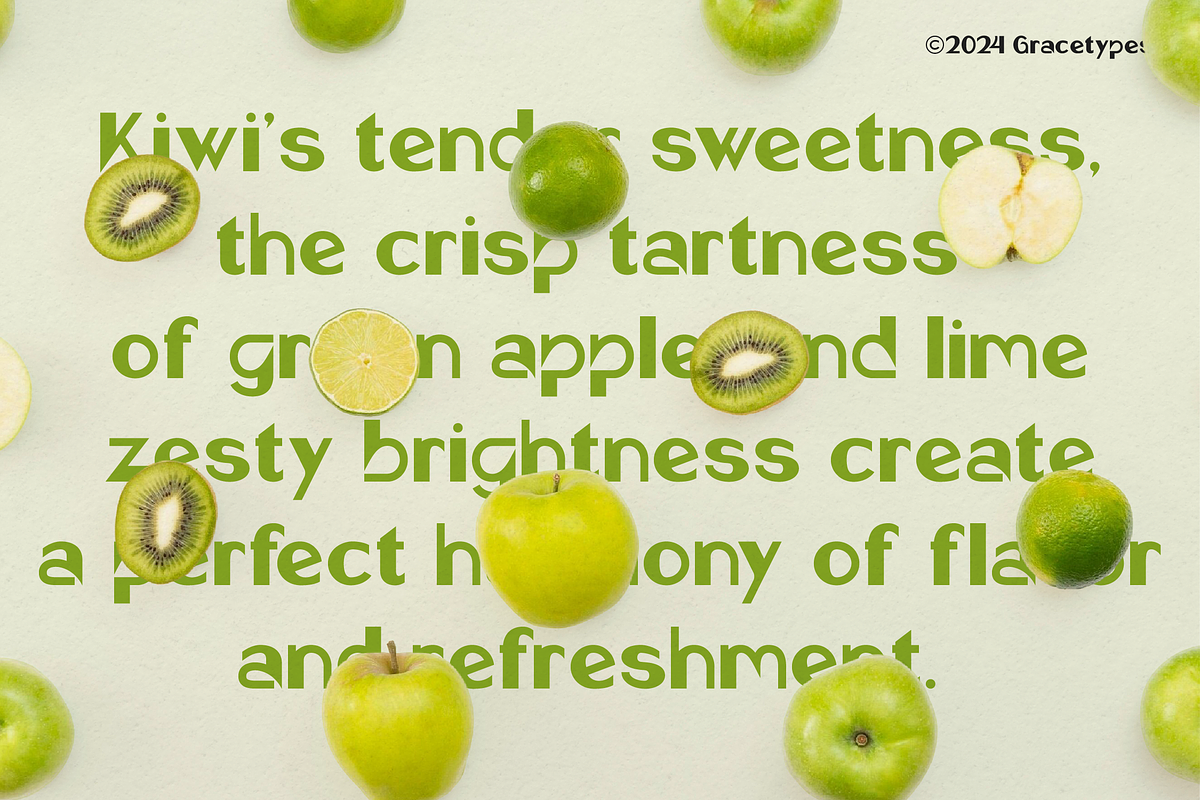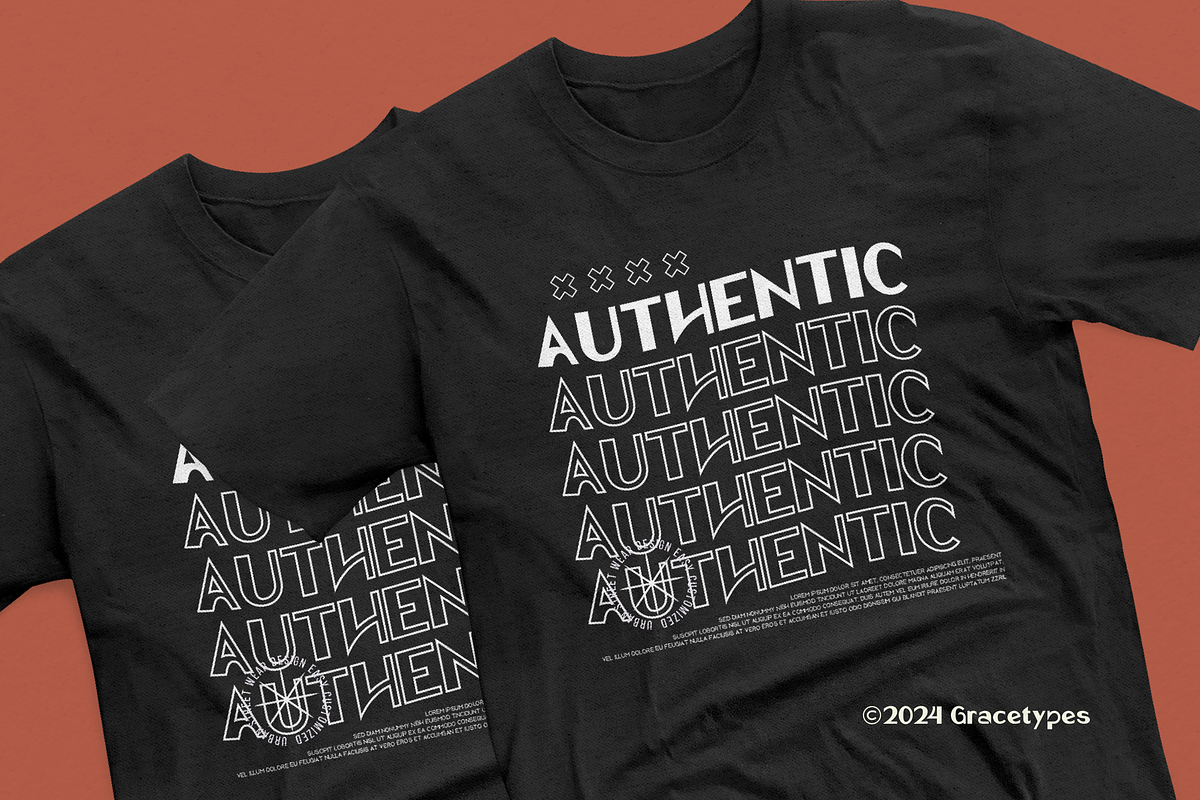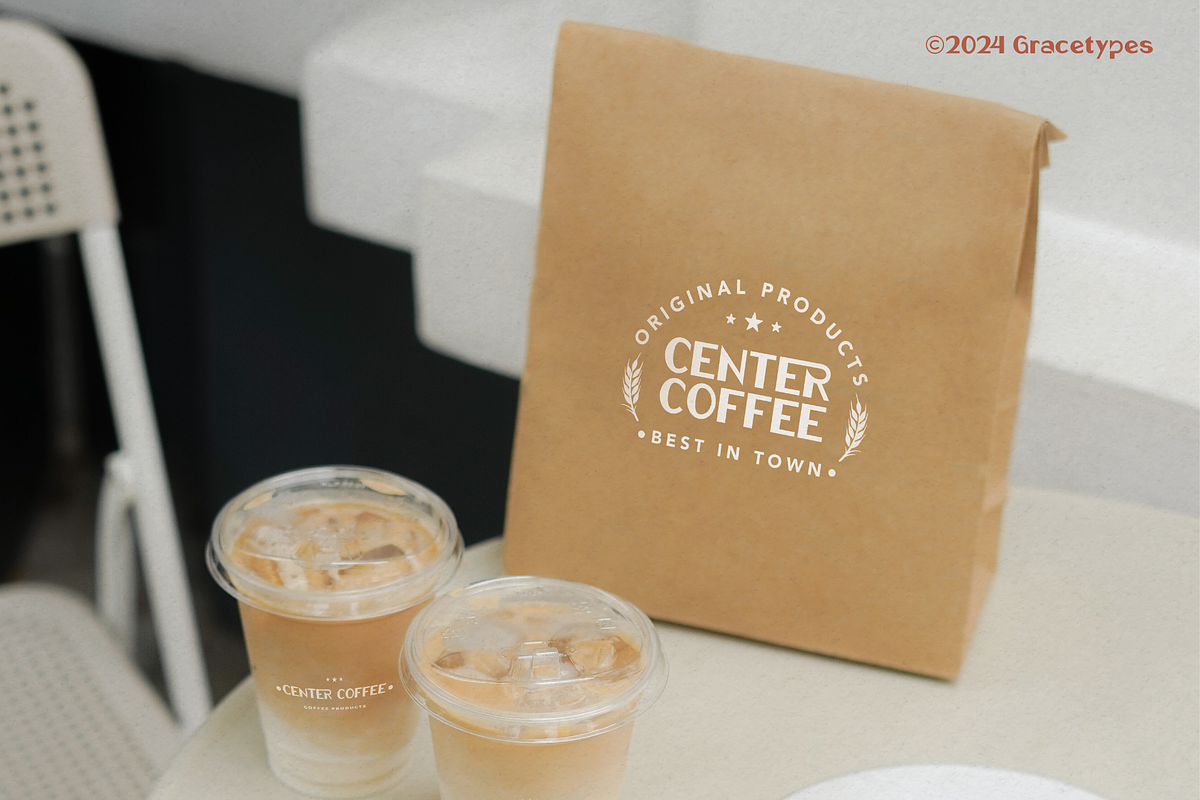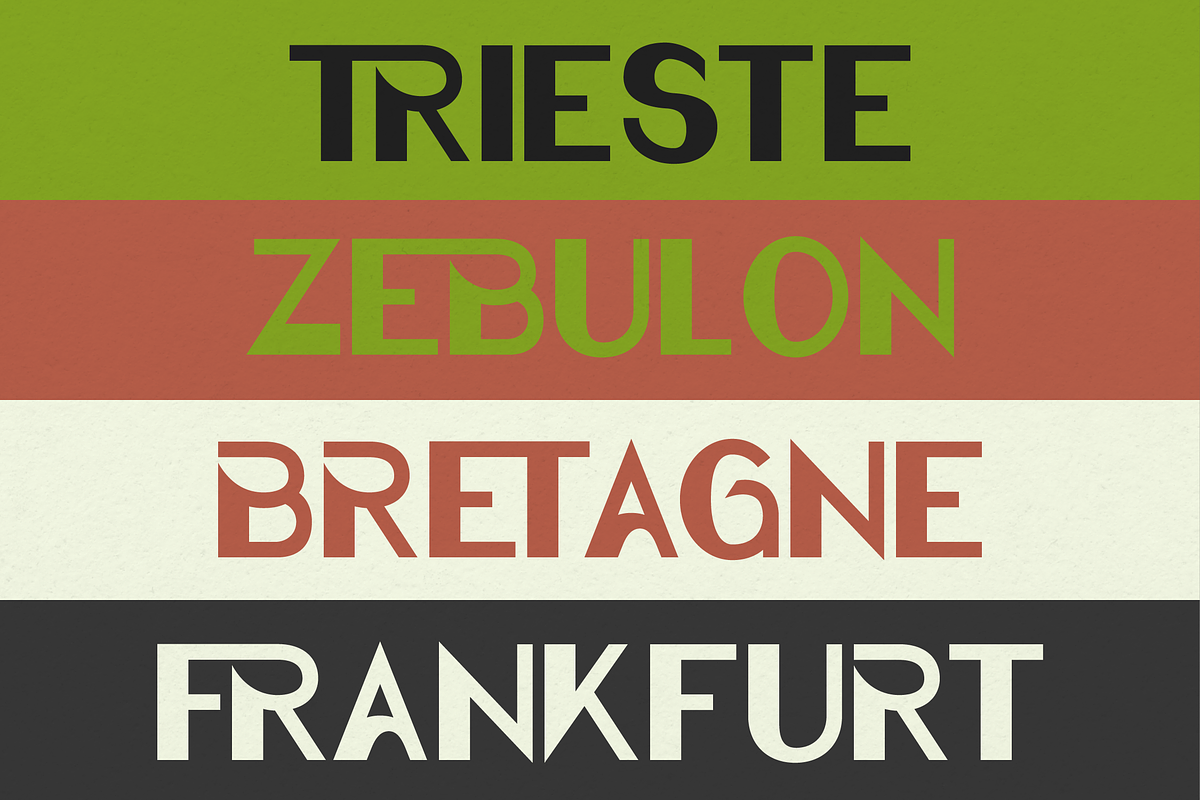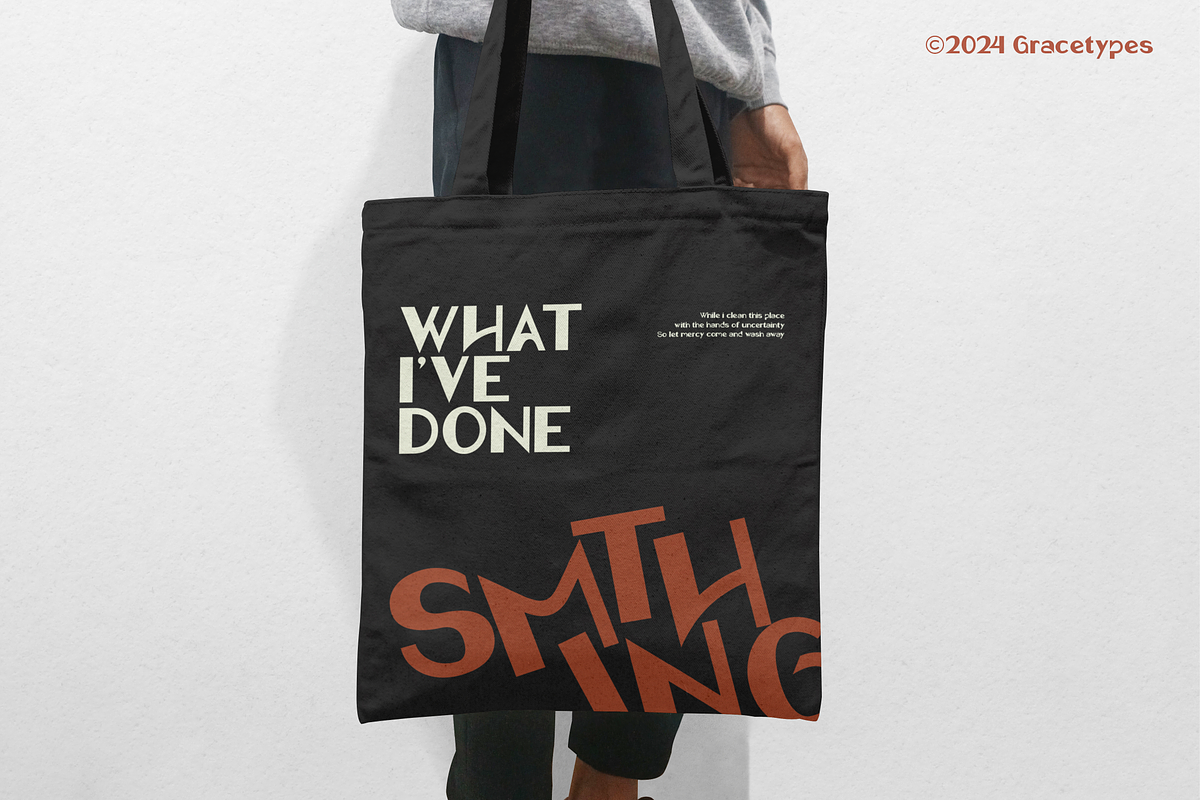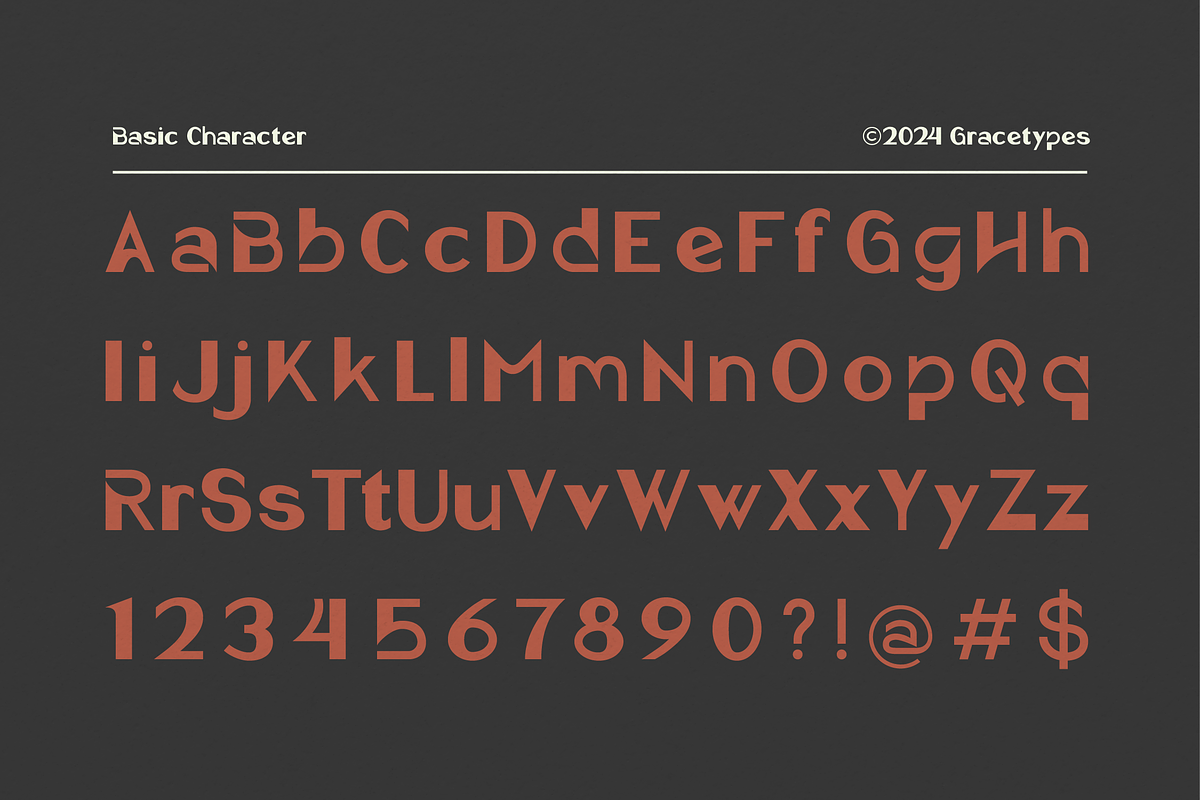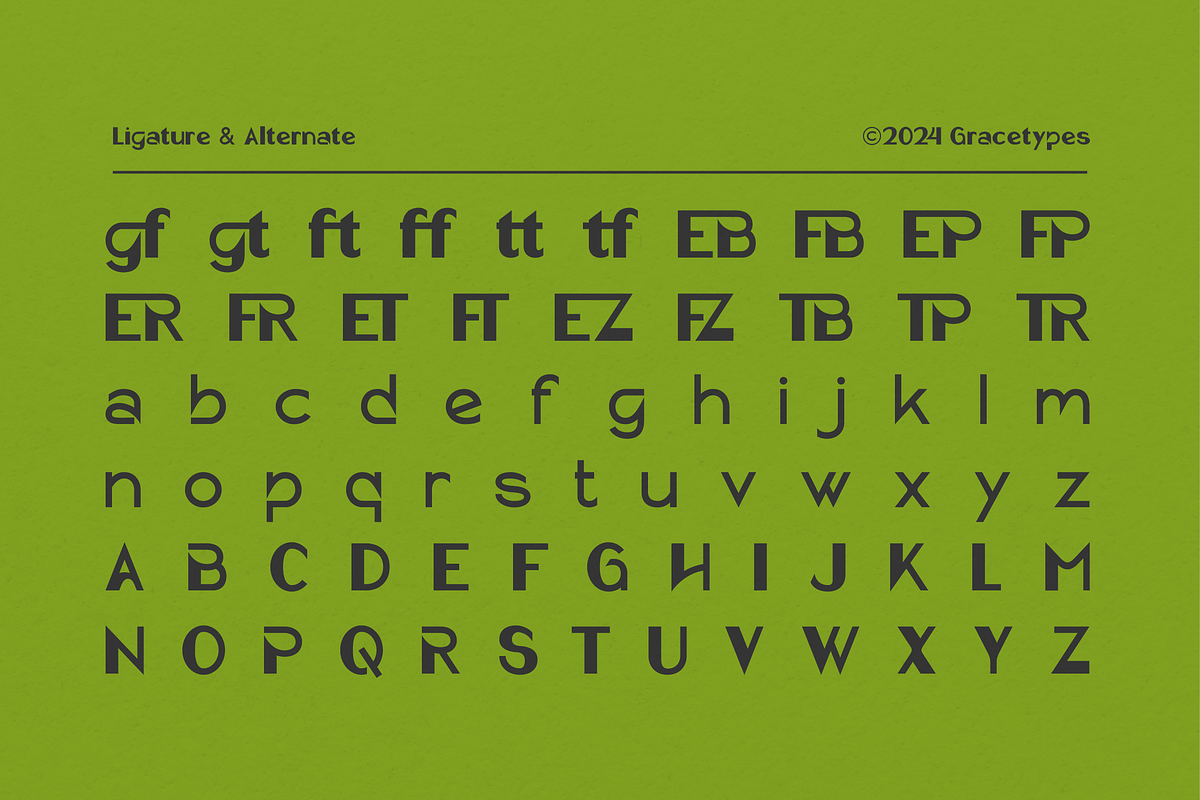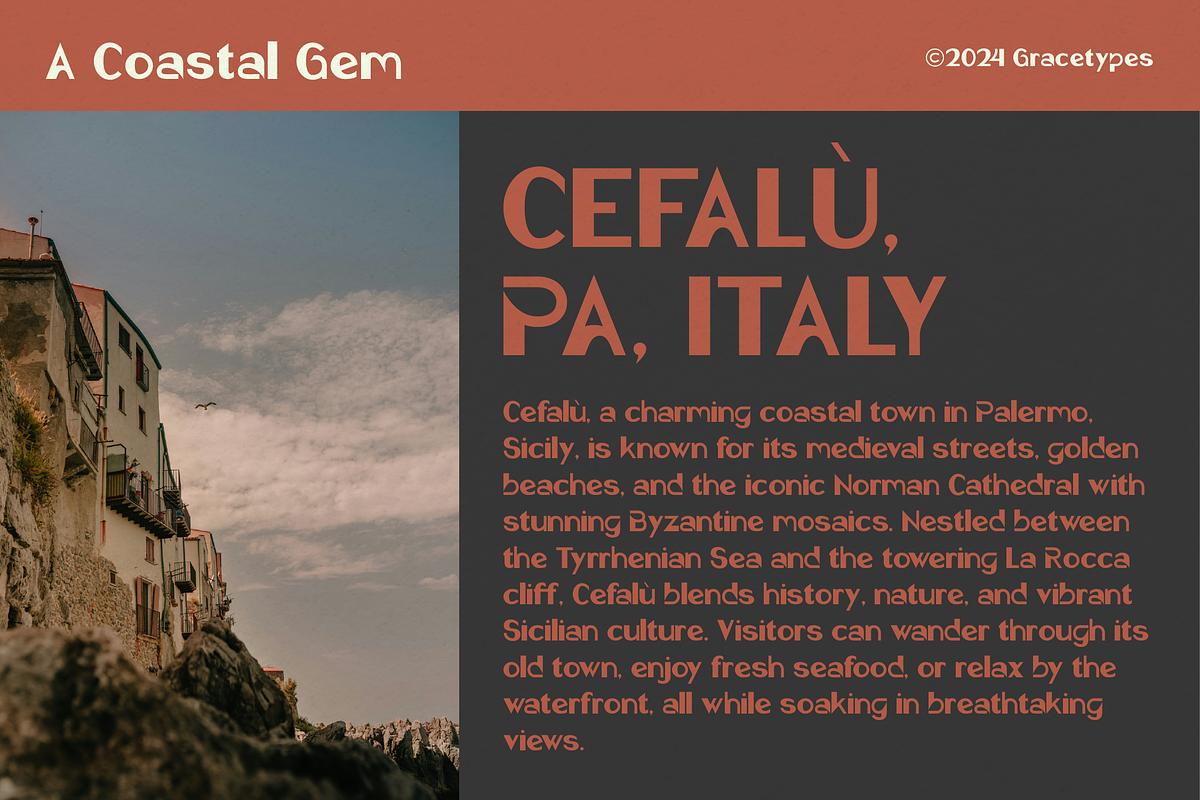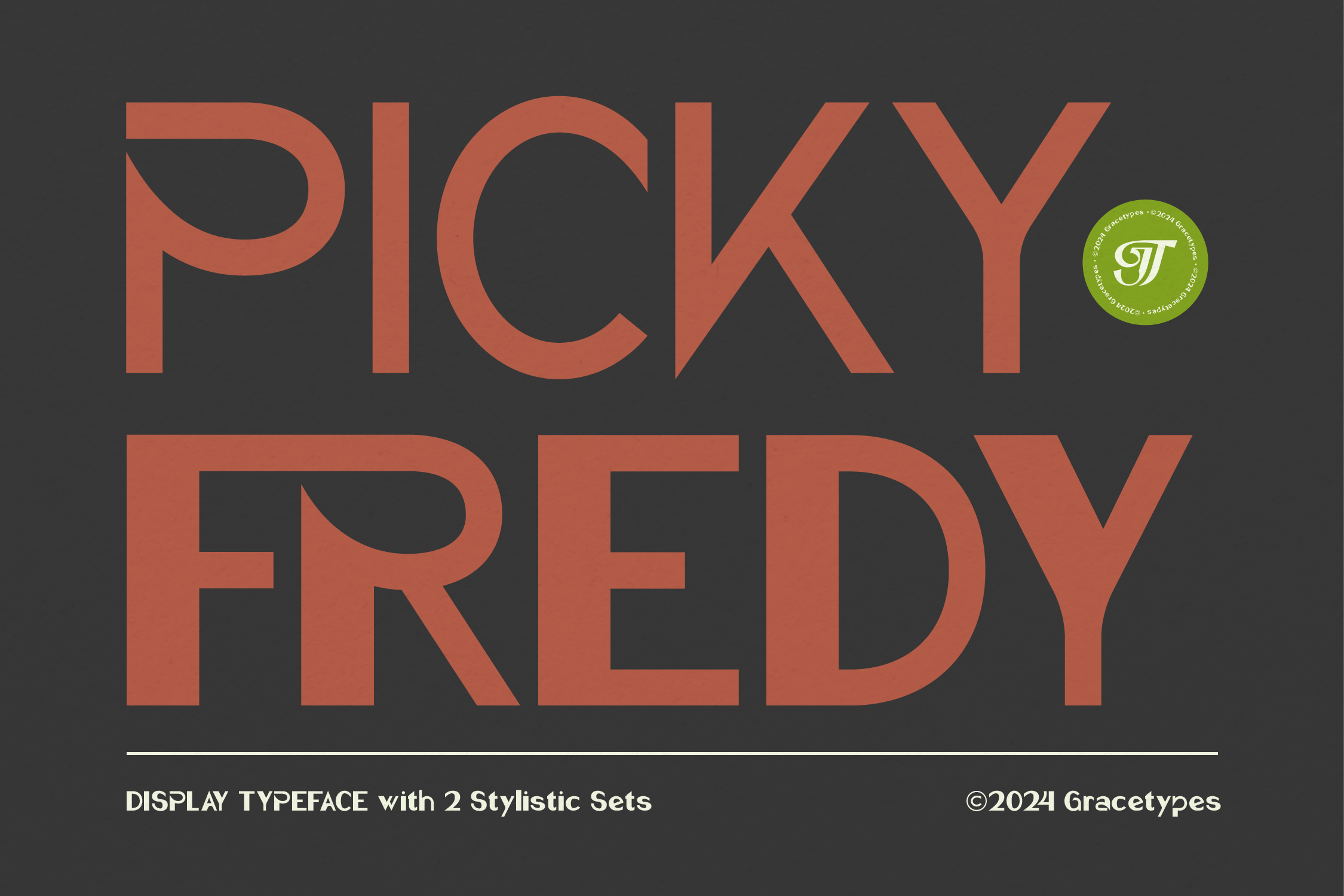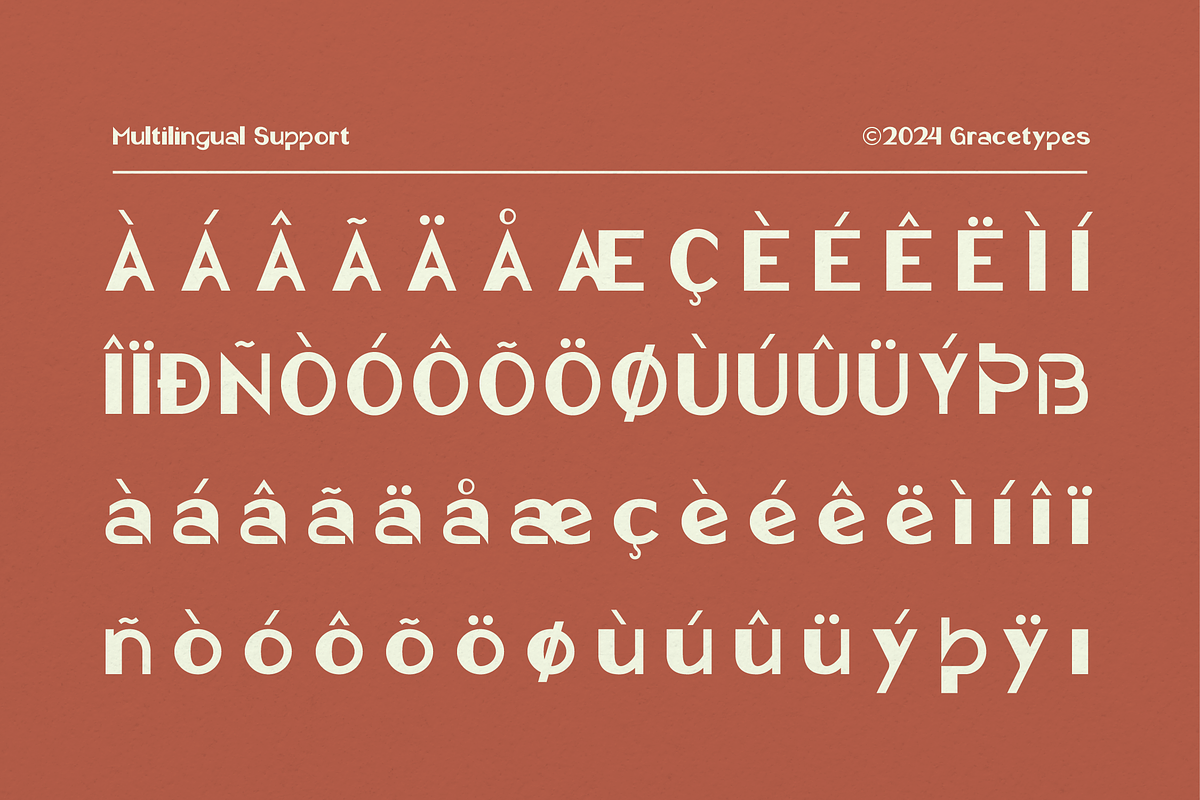
Picky Fredy | Display Typeface
Picky Fredy | Display Typeface, from Gracetypestudio, suitable for any projects such as: logos, branding projects, homeware designs, product packaging, mugs, quotes, posters, shopping bags, t-shirts, book covers, name card, invitation cards, greeting cards, label, photography, watermark, special events, and all your other lovely projects that need a Display Typeface taste.